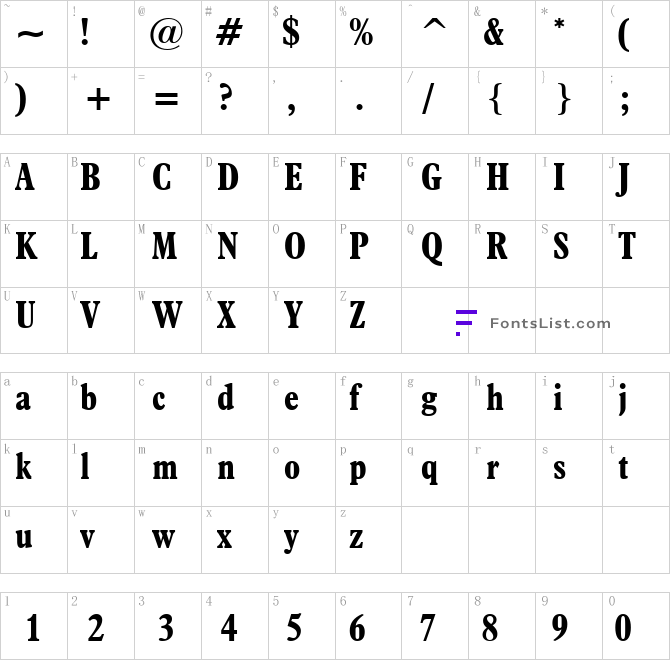
Aldine-721-Bold-Condensed-BT.ttf is a very beautiful artistic font, Aldine-721-Bold-Condensed-BT.ttf is widely used in the design and printing of various books and pictures,Aldine-721-Bold-Condensed-BT.ttf has a strong visual impact,Aldine-721-Bold-Condensed-BT.ttf is a commonly used font in newspapers, magazines and books, and is used in posters, e-commerce Poster design, store design, logo design, font design and other fields.Aldine-721-Bold-Condensed-BT.